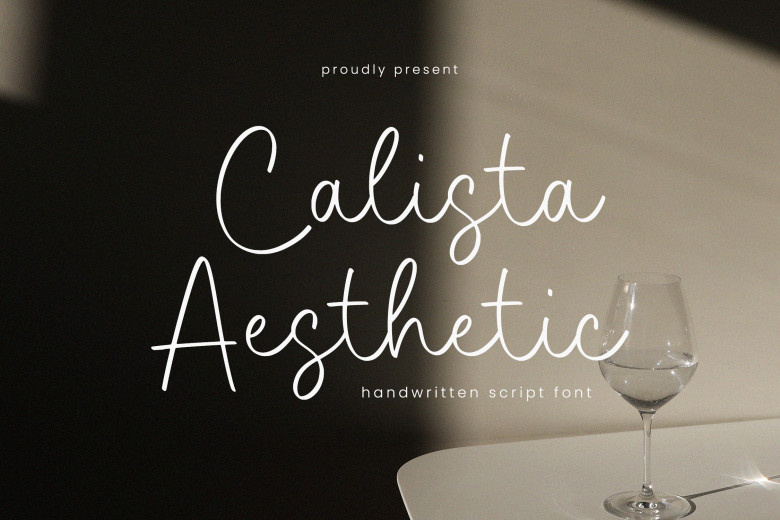
Calista Aesthetic Font
Calista Aesthetic features an inviting handwritten font with modern, fresh design elements. Use Calista Aesthetic font to experience its magic! Calista Aesthetic font can be used in branding projects, megeenazine articles or social media posts, product packaging designs or simply to bring words forward of the background.
Calista Aesthetic Handwritten Script Font